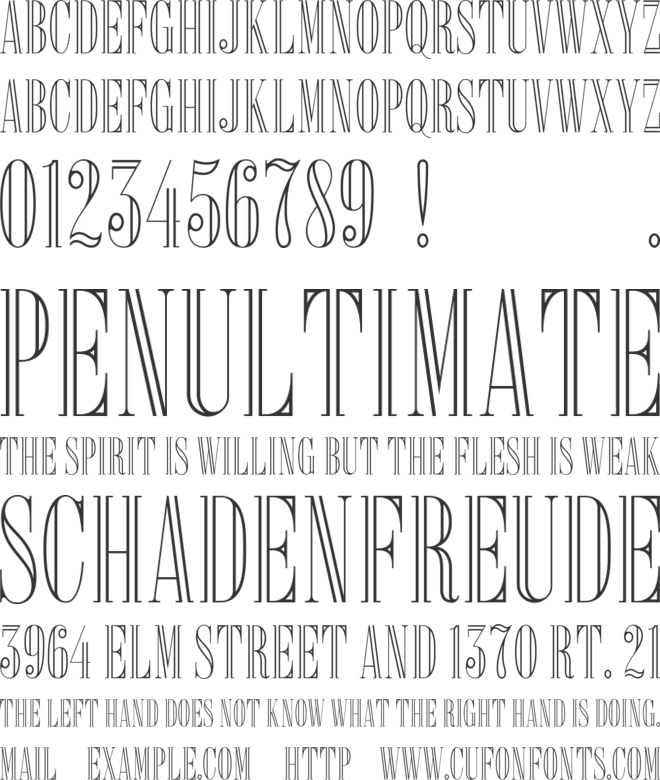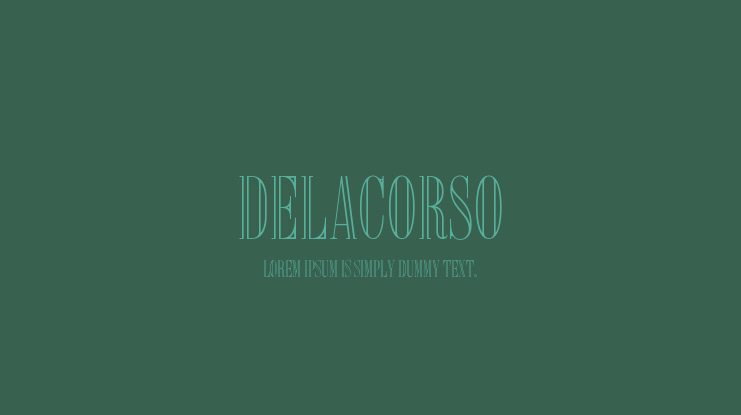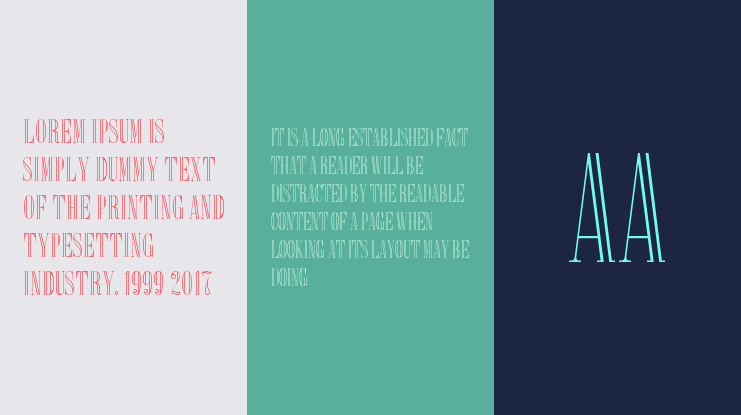
Delacorso Font
Delacorso is an elegant, all-caps display font designed with luxury in mind. Inspiration comes from the many high end stores that line New York’s 5th Avenue. A tall cap height combined with broad strokes and hairline serifs produce a striking contrast. Beautiful curvature and softened edges creates a warm effect when viewed at larger sizes. The Outlined version makes use of negative space flowing through its stems. Use Delacorso for a luxury brand, magazine, titling, or fashion logo.